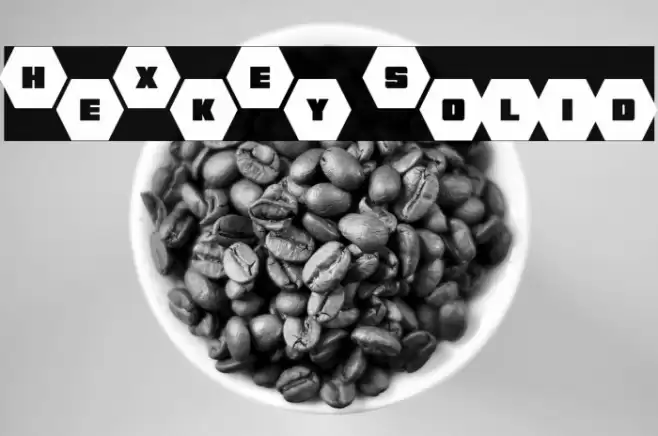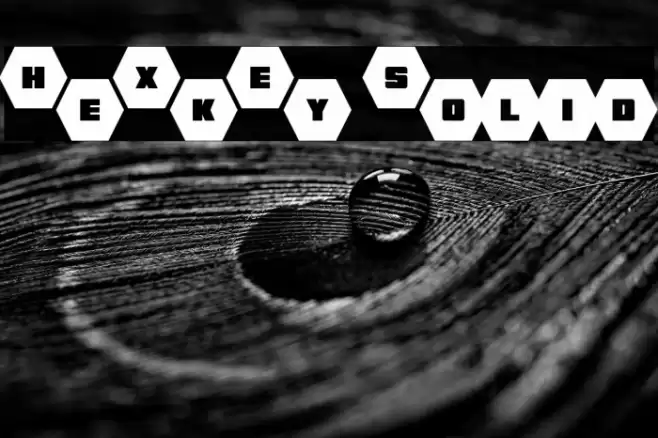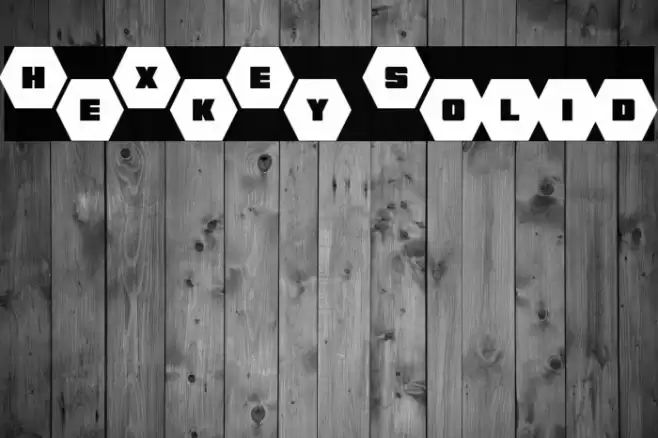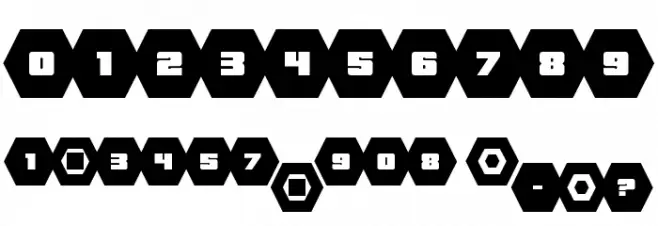
HeXkEy Solid Font
HeXkEy Solid Description
This font features a bold, geometric design with each character enclosed within a hexagonal shape. The style is distinctly modern and futuristic, with sharp edges and a uniform thickness throughout each letter and number. The characters are all uppercase, with a consistent height and width, creating a cohesive and structured appearance. The unique hexagonal framing adds a decorative element, making it stand out for creative and eye-catching designs. The font's uniformity and boldness make it suitable for projects that require a strong visual impact.
A bold, geometric font with characters enclosed in hexagonal shapes, offering a modern and futuristic look from Uncategorized fonts.
- Proposed Projects: Ideal for video game titles, tech branding, futuristic posters, and any project needing a bold, modern aesthetic.